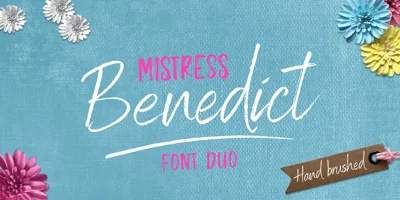
Mistress Benedict Brush Font
Mistress Benedict Brush Font is ideal for artistic calligraphy workshops, expressive painting studios, handcrafted artisan branding, brush lettering tutorials, creative wedding invitations, artistic personal signatures, expressive poetry books, bohemian lifestyle brands, artistic greeting cards, and authentic handmade product labels.
What makes Mistress Benedict Brush Font exciting is its expressive artistry and brush-painted elegance that captures the essence of hand-painted calligraphy with authentic artistic flair and creative sophistication. This captivating typeface embodies the spirit of artistic expression with its flowing character forms and brush-inspired proportions that evoke ink flowing from artist brushes, expressive strokes on handmade paper, and the kind of authentic artistry that comes from years of practiced brush technique. The font's artistic character creates an immediate impression of creative authenticity and the kind of expressive elegance that resonates with artistic souls.
Mistress Benedict Brush Font family includes regular weight with artistically crafted character designs featuring brush-stroke curves and expressive proportions. The typeface maintains excellent readability while showcasing its distinctive artistic personality through expressively designed letterforms that seem painted by a master calligrapher with years of brush experience and artistic refinement.
Artistic professionals consistently choose Mistress Benedict Brush Font for projects requiring authentic artistic appeal and calligraphic credibility. This remarkable typeface brings the elegance of hand-painted artistry to brand communications, combining brush aesthetics with creative authenticity to create memorable artistic experiences. The artistically designed characters ensure expressive positioning across all applications, making it essential for art studios, creative agencies, and any organization seeking to communicate the transformative power of artistic expression and the authentic beauty that comes from embracing handcrafted brush lettering traditions through Mistress Benedict Brush Font.